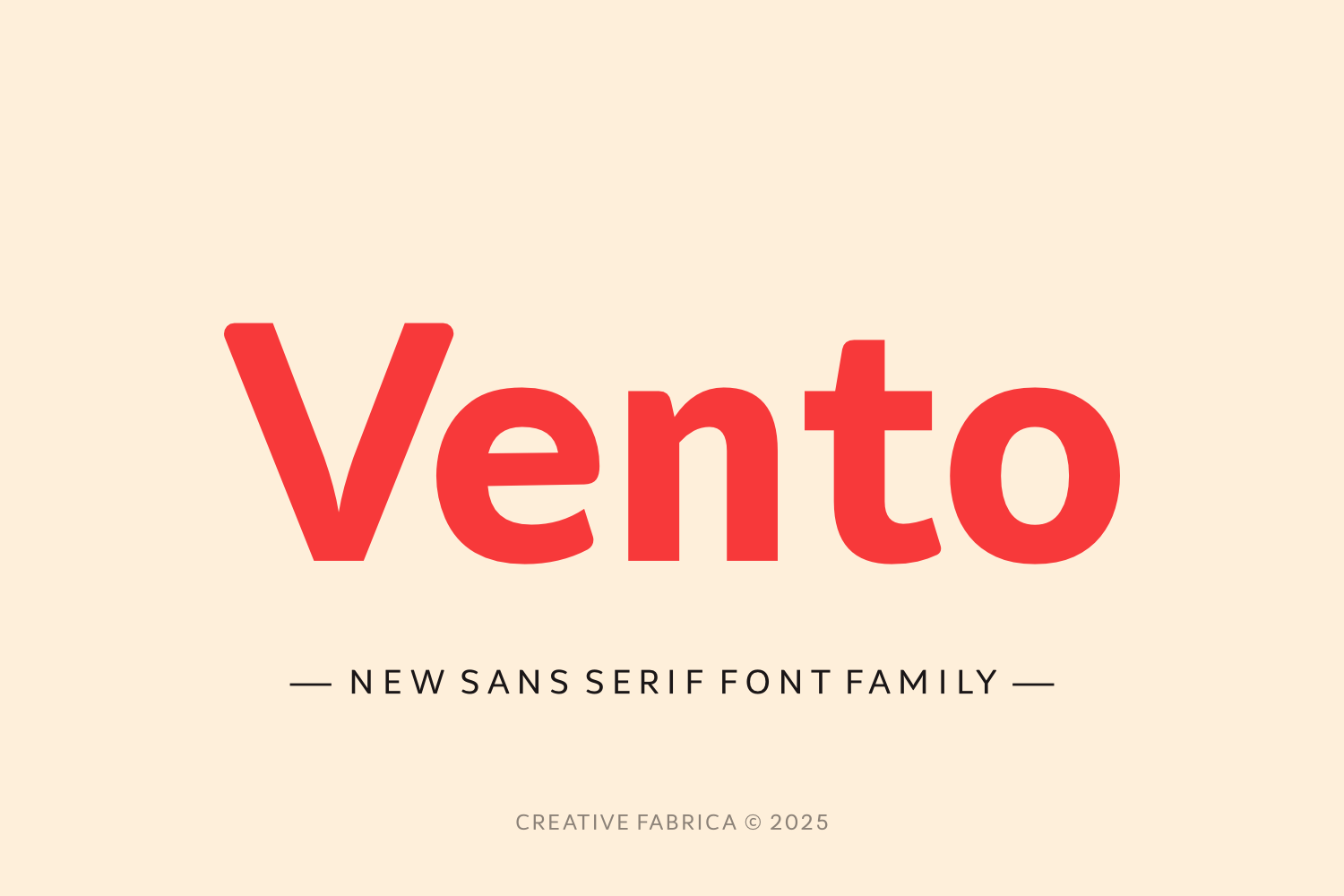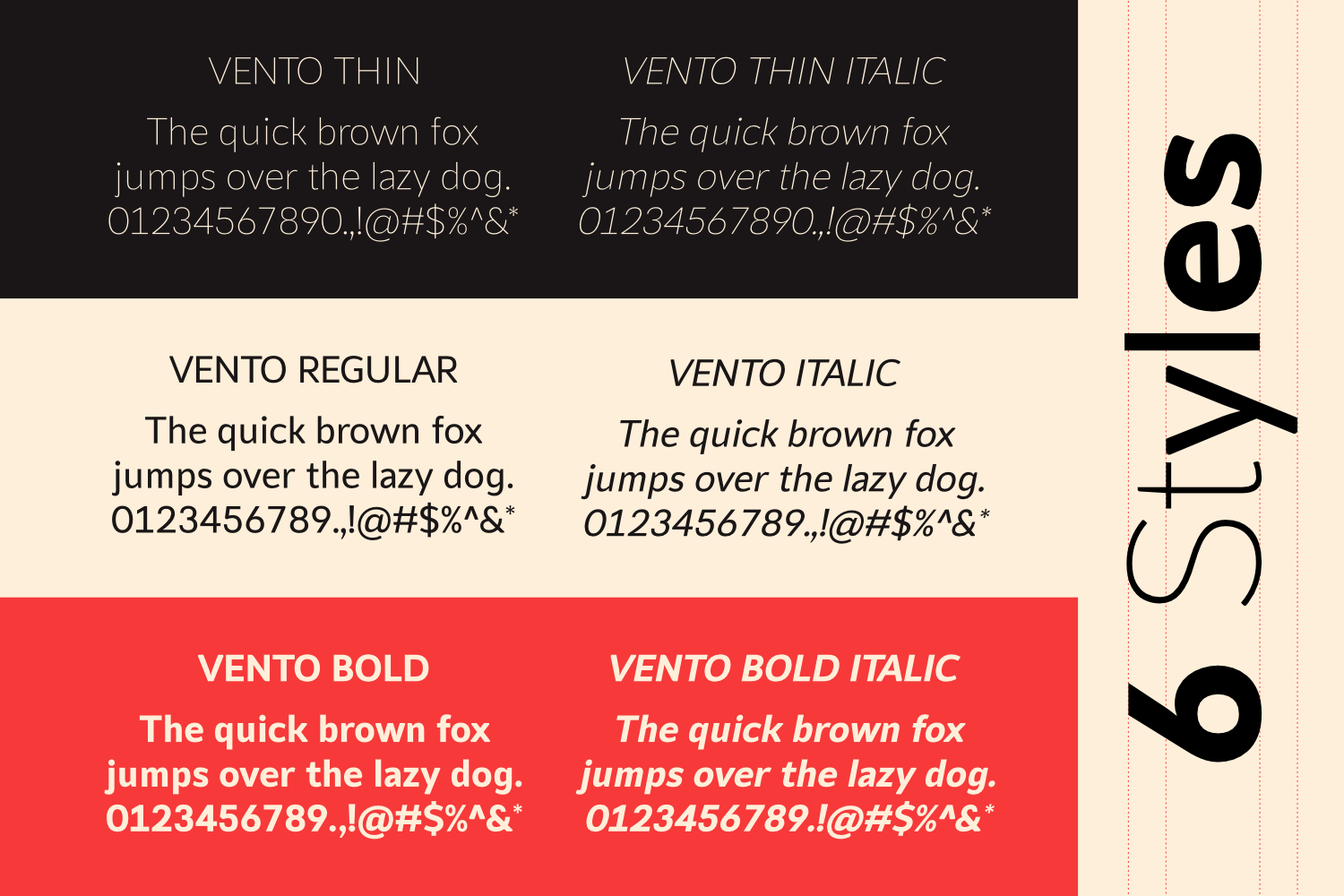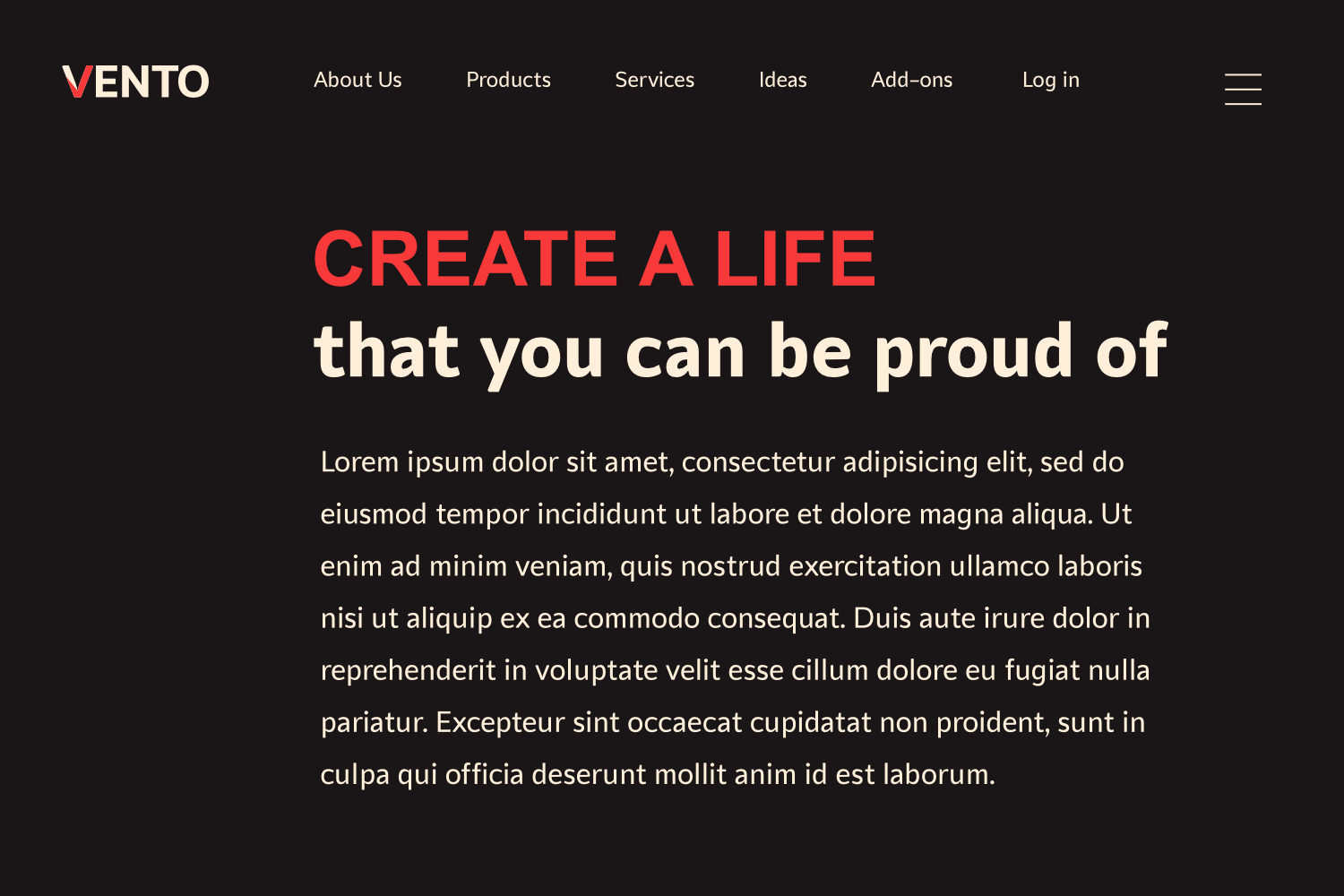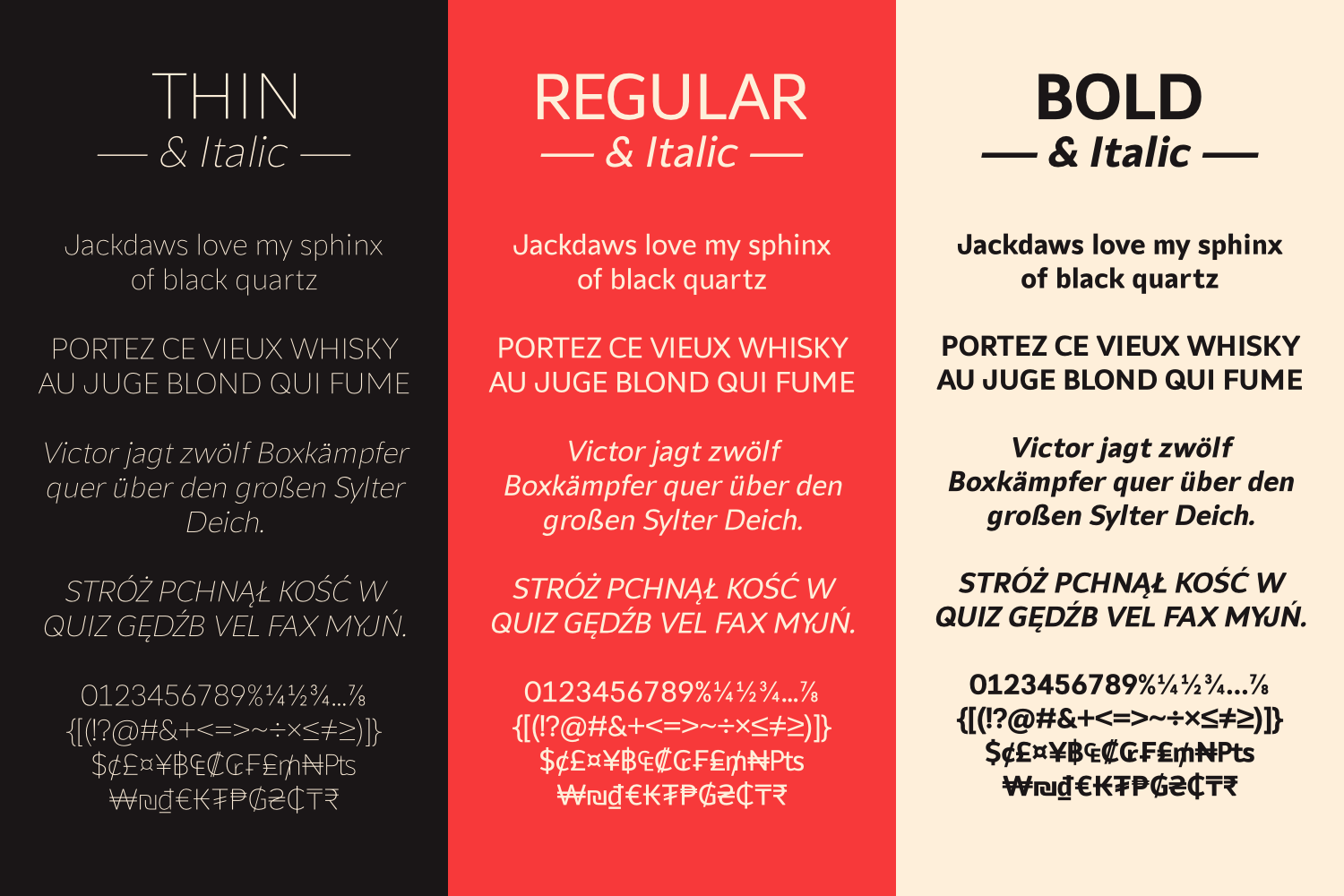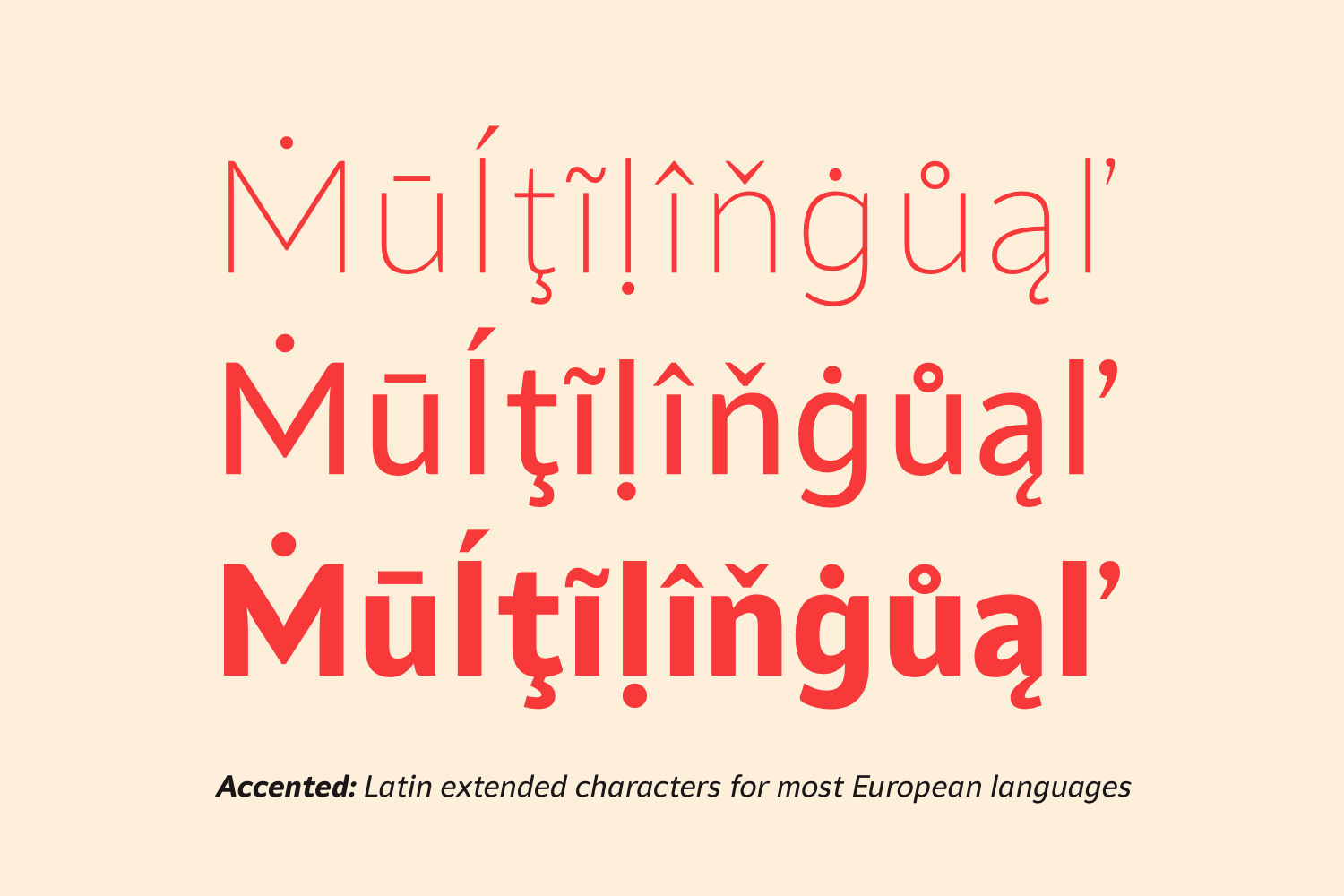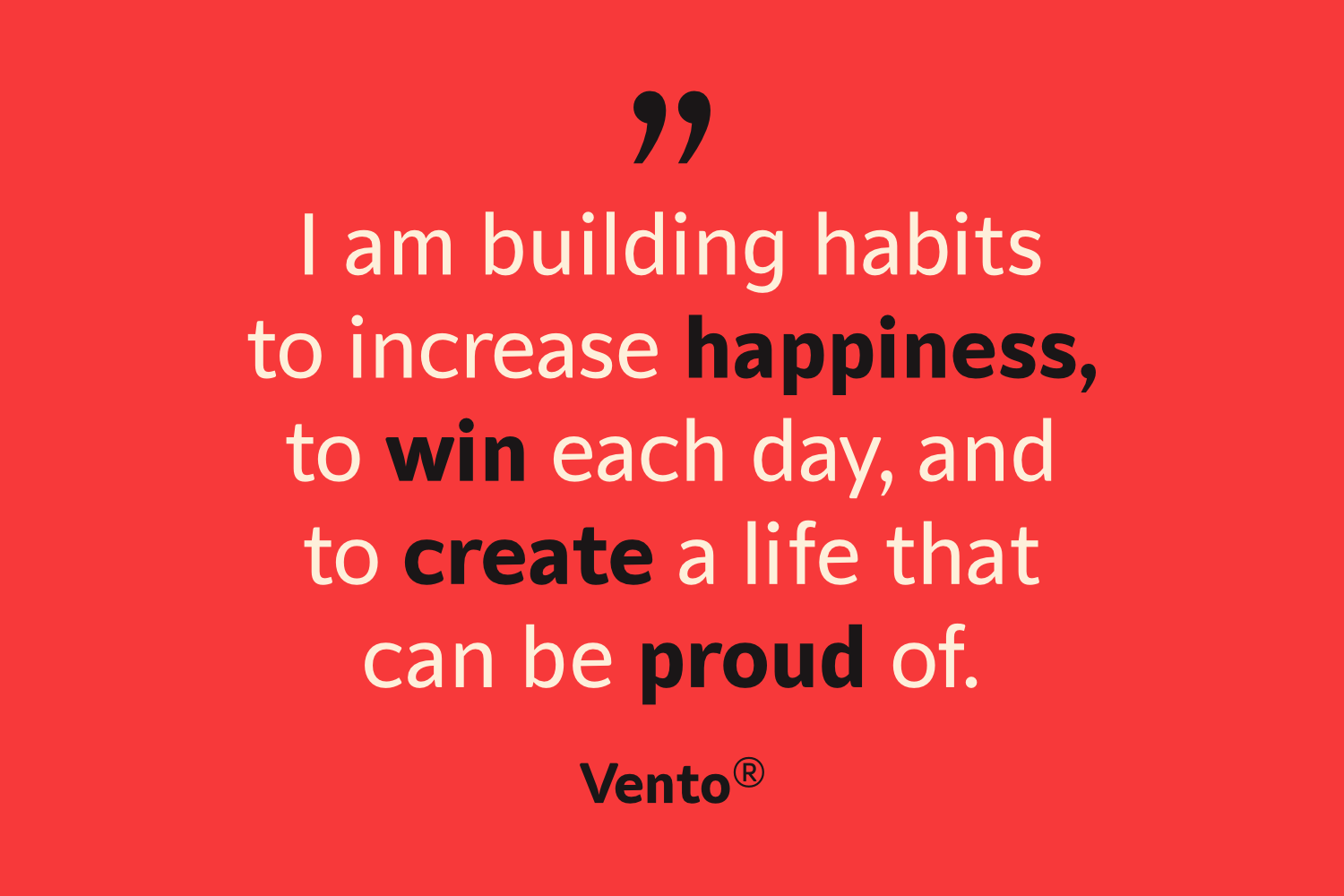
Vento is a modern sans-serif font family inspired by the clean, geometric elegance of the Lato typeface. With its bold yet approachable design, Vento combines simplicity and versatility, making it perfect for branding, web design, headlines, and print materials. Its well-balanced letterforms ensure clarity and readability, making it an excellent choice for both professional and creative projects.